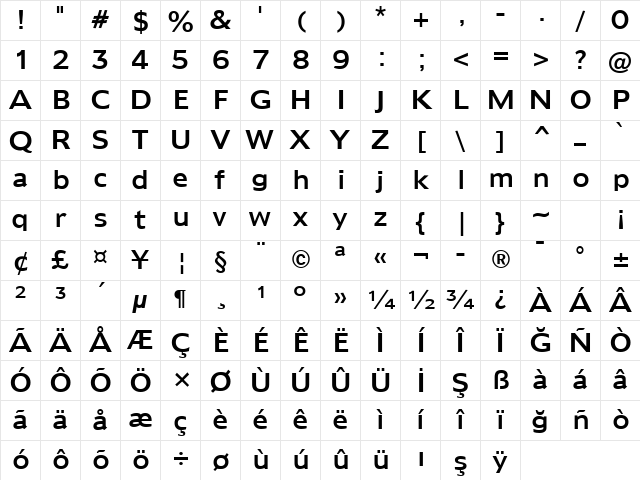
Complete 101! Heart Deco Regular glyph index. Displaying only characters natively supported by 101! Heart Deco Regular font.
101! Heart Deco is a composed and adaptable typeface that performs quietly and consistently across a wide range of design contexts.
Pro Tip: Use 101! Heart Deco in both headline and body roles to test its range before committing to a single application.